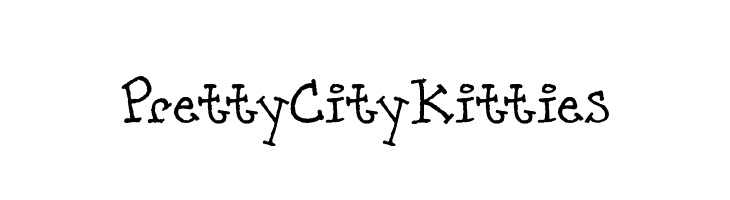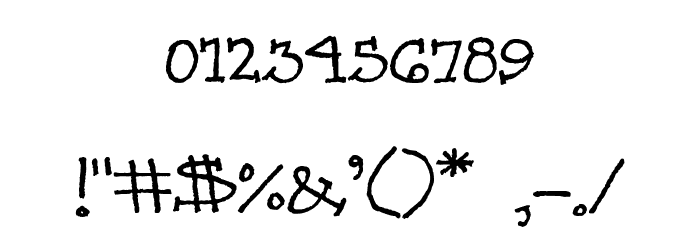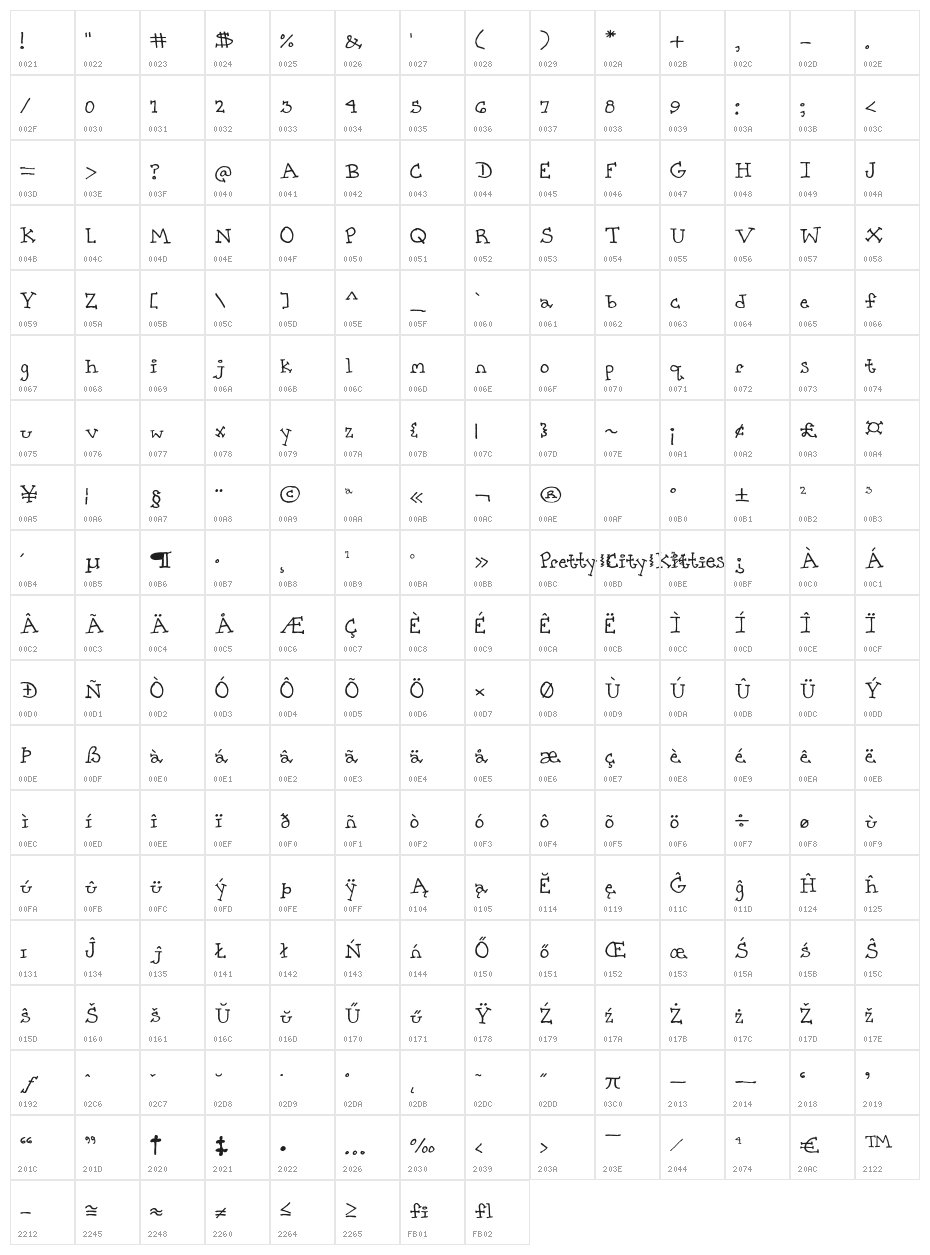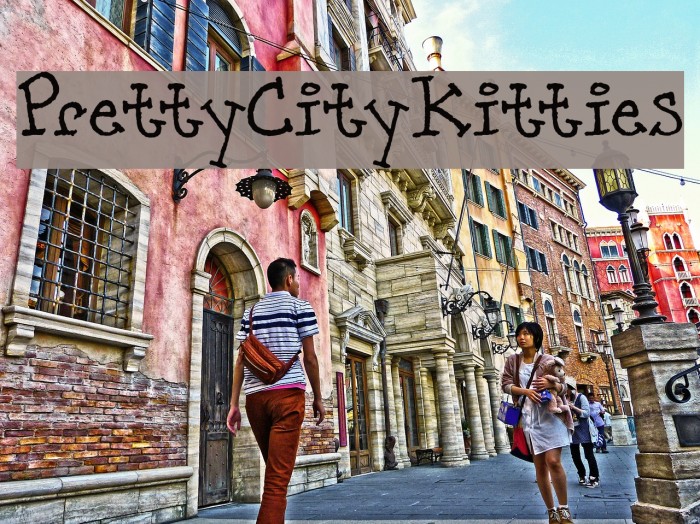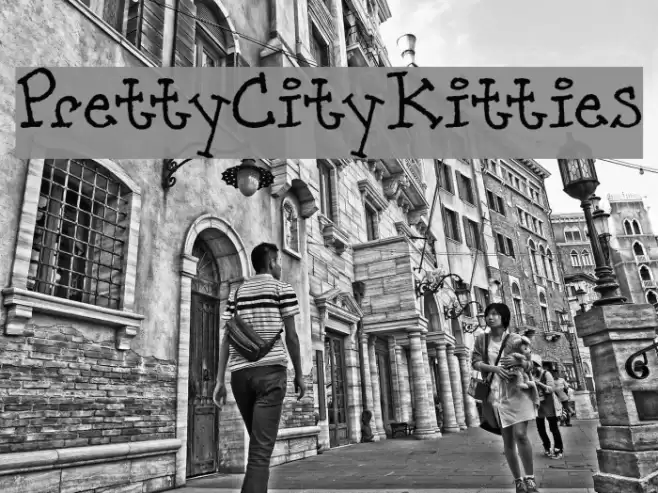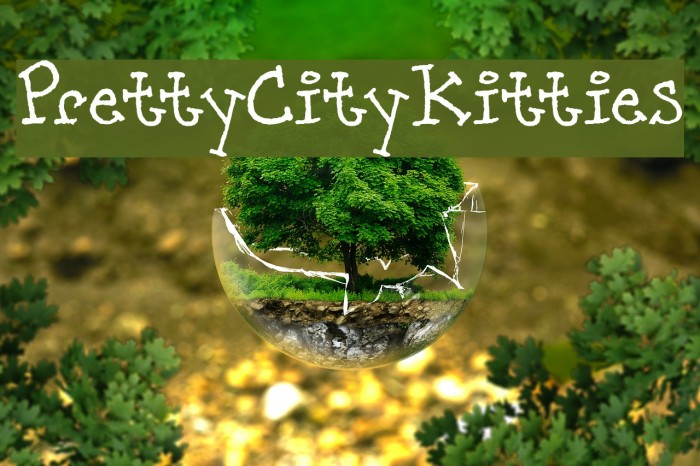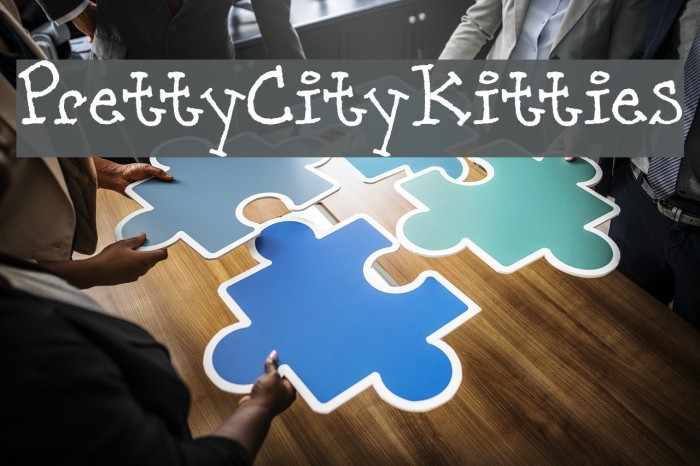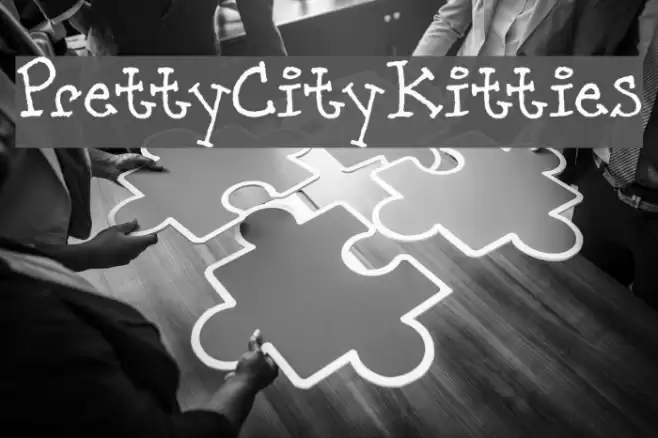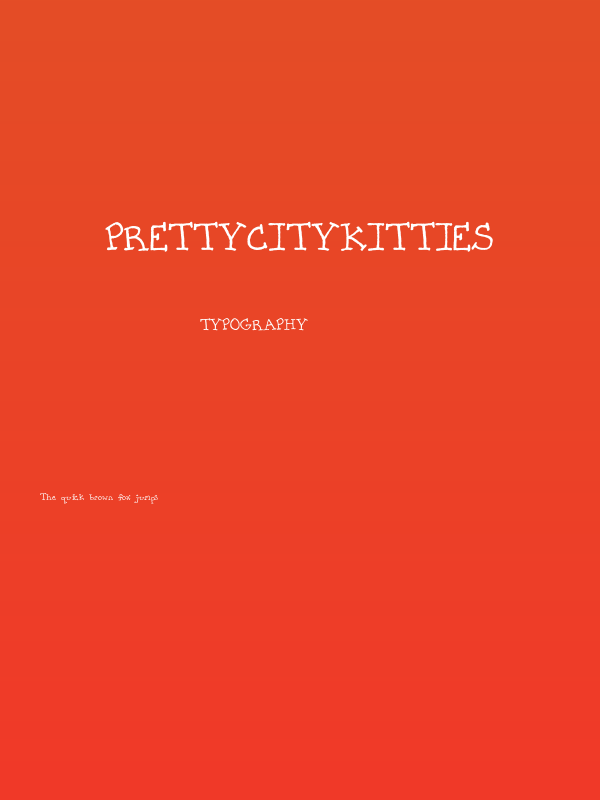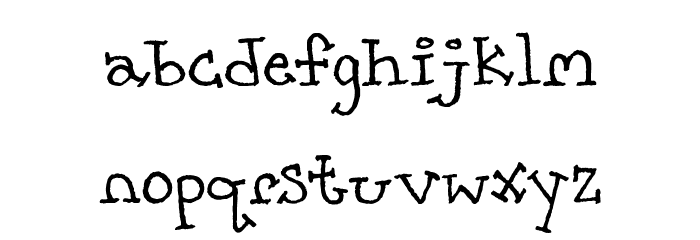
PrettyCityKitties Font
This font features a playful and whimsical style, characterized by its irregular and hand-drawn appearance. The letters have a slightly uneven baseline, giving them a casual and informal look. The strokes are uneven, with some parts thicker than others, adding to the hand-crafted feel. The uppercase letters are bold and prominent, while the lowercase letters maintain a quirky charm. Numbers and special characters follow the same playful design, making this font suitable for creative and fun projects. Its unique style is perfect for adding a touch of personality and creativity to any design.
| Proposed Projects | Ideal for children's books, greeting cards, playful branding, and creative posters. |